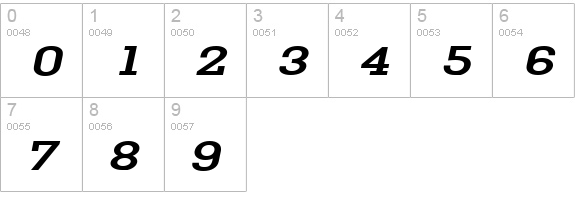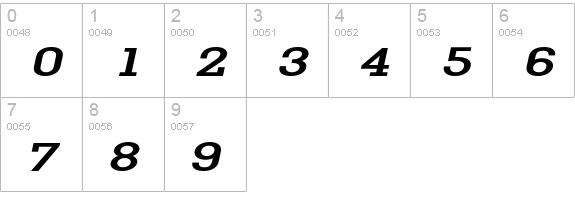
Geo Extended Bold Italic is a strong, high-contrast, extended-width, italic variant in the Geo typeface family \xE2\x80\x94 well suited to headlines, attention-grabbing titles, and strong calls-to-action.
Geo Extended Bold Italic is a modern and eye-catching typeface that exudes strength and sophistication. Its bold strokes and slanted italics create a dynamic and energetic design perfect for making a statement. The geometric shapes and extended proportions give this font a contemporary and stylish look that is ideal for a variety of projects. What sets Geo Extended Bold Italic apart is not only its striking appearance but also its versatility. Whether you are designing a logo, poster, website, or any other creative project, this font will add a touch of boldness and flair. And the best part? Geo Extended Bold Italic is available for free download at FontsMarket.com. You can easily access this font and enhance your designs with its unique style without any cost. Don't miss out on this opportunity to elevate your projects with Geo Extended Bold Italic!